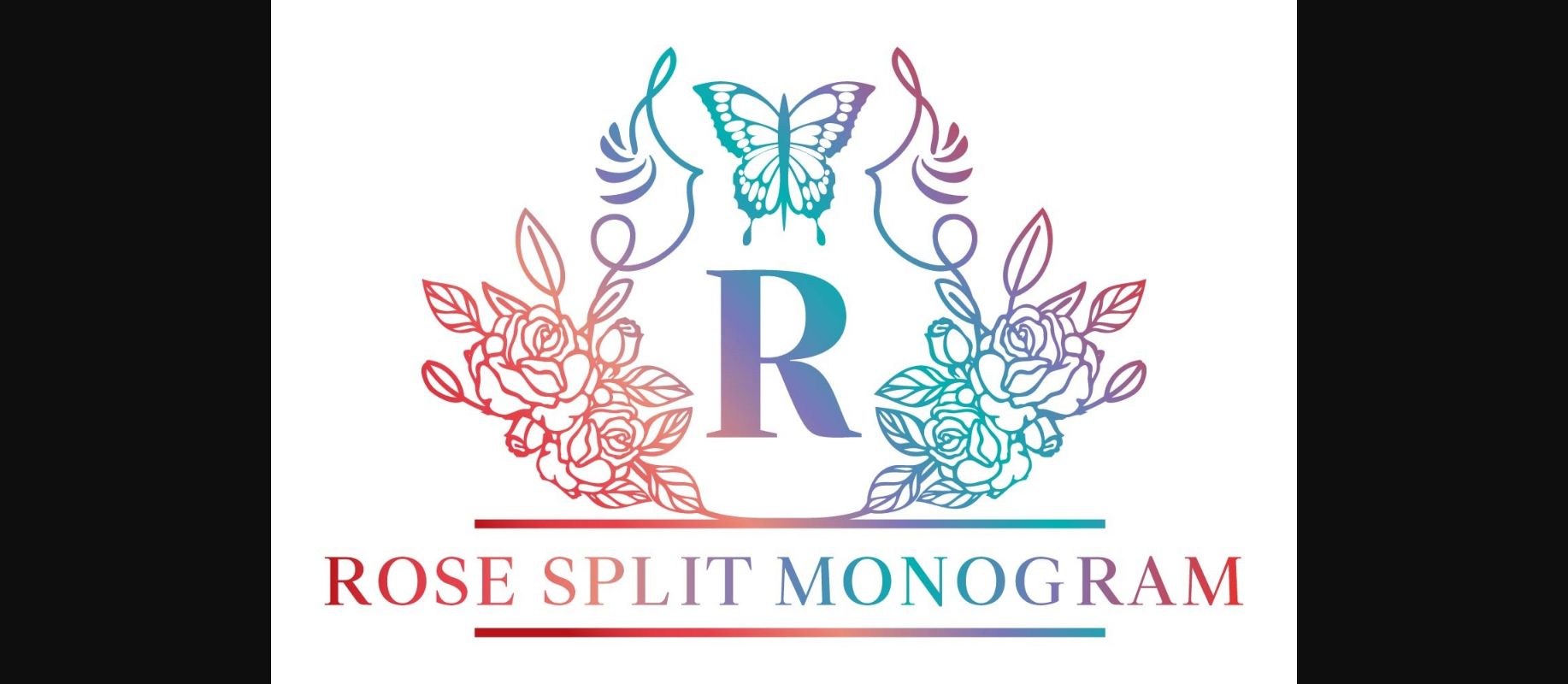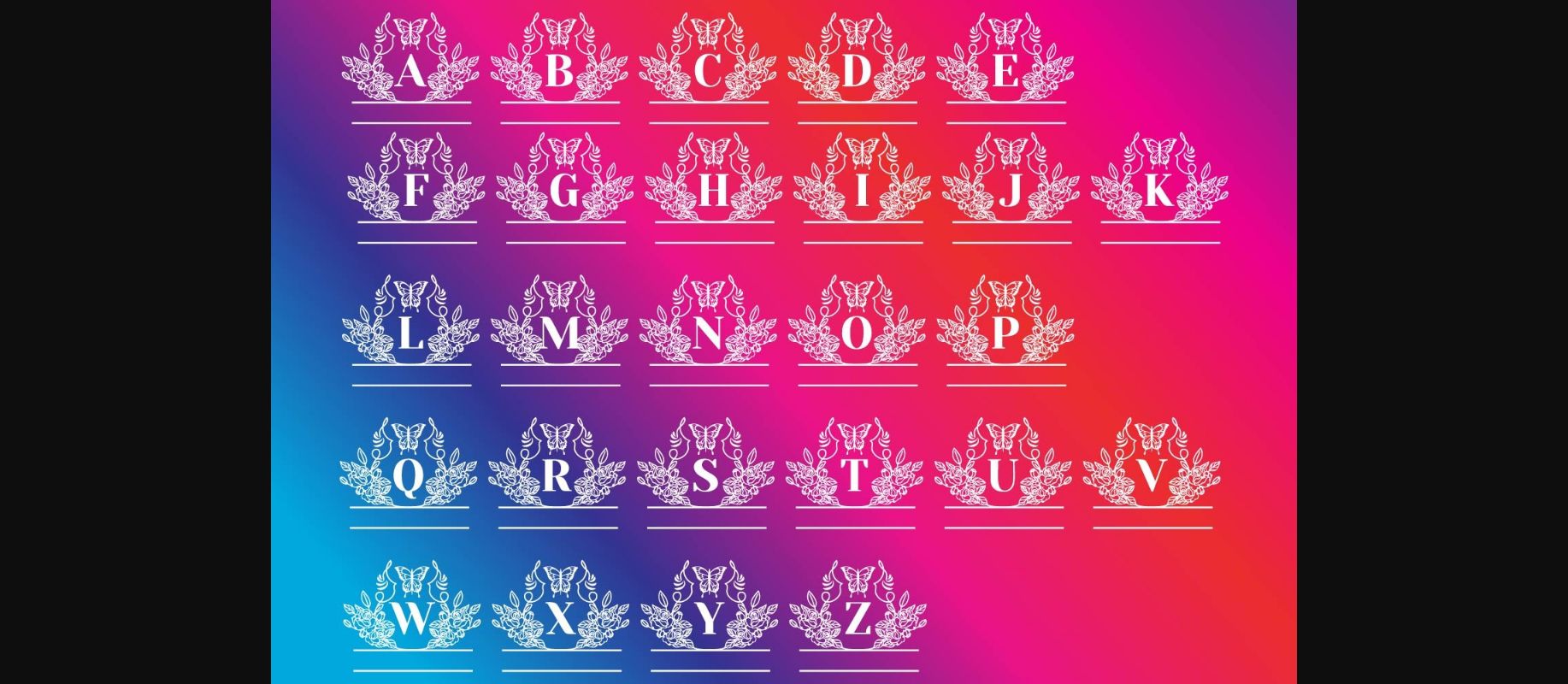
Rose Split Monogram Font
About Rose Split Monogram Font
Rose Split Monogram is an adorable decorative font, designed with split letters. It is suitable for digital projects, cards, invitations, weddings, logos, kids monograms, website or crafts projects. Add it confidently to your projects, and you will love the results.